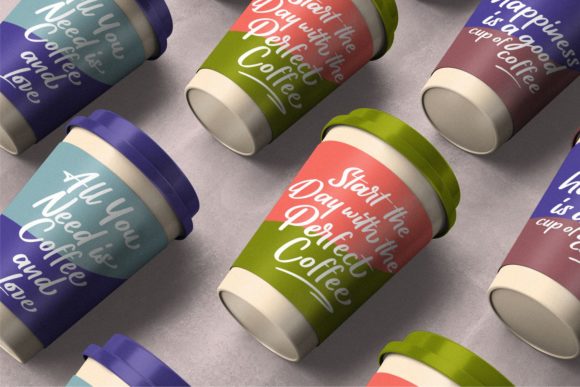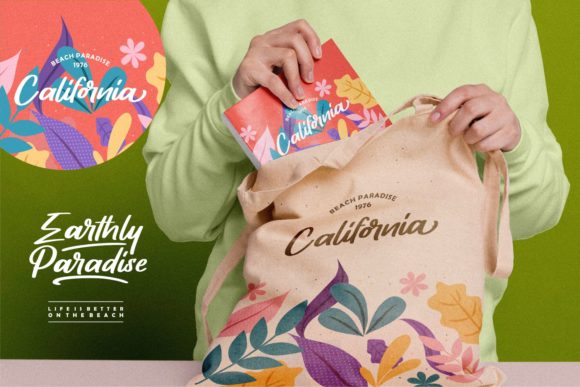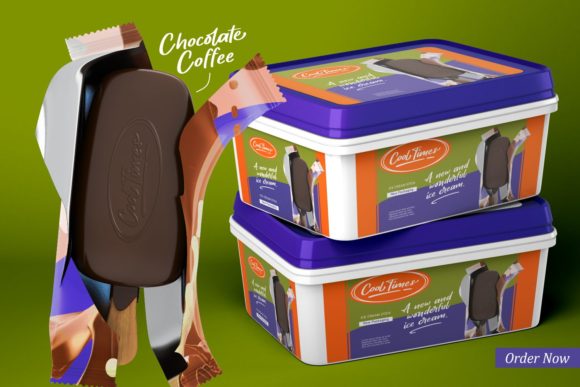
Introduction to Quarts Pachino Font
Quarts Pachino is a cursive brushed script font.
Warm, romantic and jolly, this font will turn each of your project ideas into real works of art Have fun with this beautiful font and explore its endless variations.